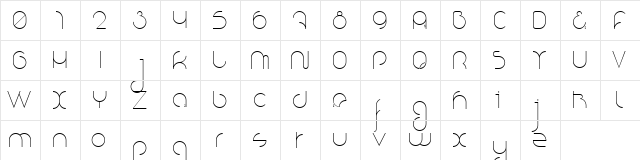
Nioubes Light Nioubes Light
| Foundry | BenoԴ Sjڨolm |
| Designer | BenoԴ Sjڨolm |
Design Context for Nioubes Light Typeface
Nioubes Light takes a measured approach to typography — its balanced proportions and neutral character make it a reliable workhorse for both digital and print work. Its slender proportions lend an understated elegance to any composition.